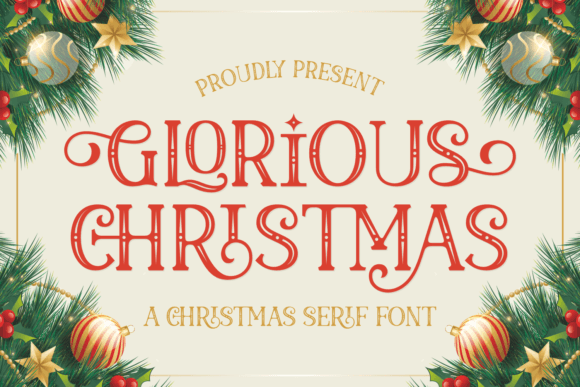
Introducing Glorious Christmas Font, a serif font designed specifically for editing videos, brought to you by Situjuh. This font is the ultimate choice to elevate your holiday creations and infuse them with a touch of enchantment.
With its splendid serifs and beautifully rounded characters, Glorious Christmas Font exudes a sense of timeless elegance. Each letter is meticulously crafted to create a whimsical, exquisite, and truly magnificent look.
Imagine the joy it will bring to your holiday-themed videos! Whether you're making a heartfelt family montage or a festive advertisement, this font will instantly captivate your audience. It's the perfect tool to evoke warm emotions and create a magical atmosphere.
But Glorious Christmas Font is not just visually stunning – it's also incredibly versatile. Its captivating design seamlessly blends with any video style, enhancing the overall aesthetic and leaving a lasting impression.
When using Glorious Christmas Font, you'll be able to express the true spirit of the season. From Christmas greetings to winter-themed promotions, this font will make your text shine like a star atop a beautifully decorated tree.
Embrace the power of words with Glorious Christmas Font. Its enchanting beauty will inspire your creativity and transport your audience into a world of holiday wonder.